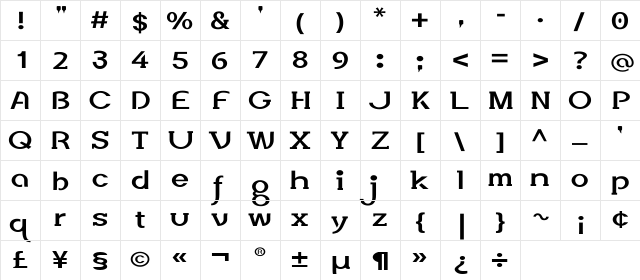
aguije Caiman Regular
| Designer | ONO TAKEHIKO |
Design Context for aguije Caiman Typeface
aguije Caiman is a composed and adaptable typeface that performs quietly and consistently across a wide range of design contexts.